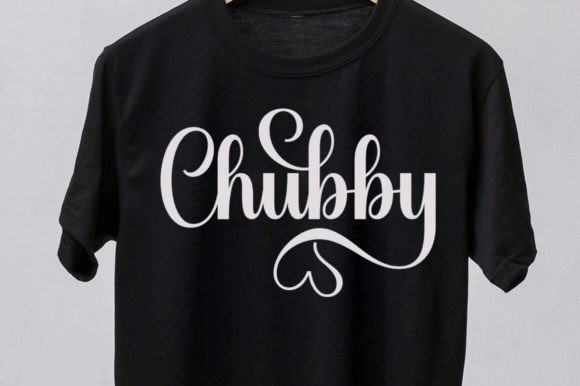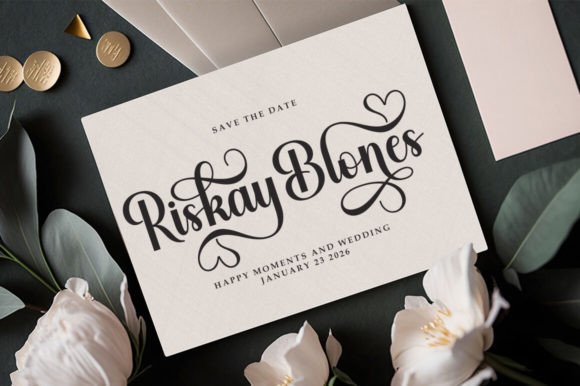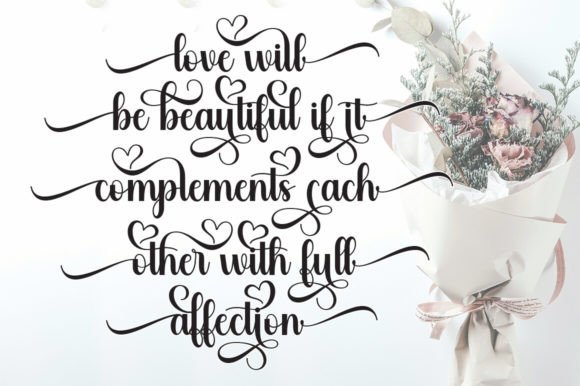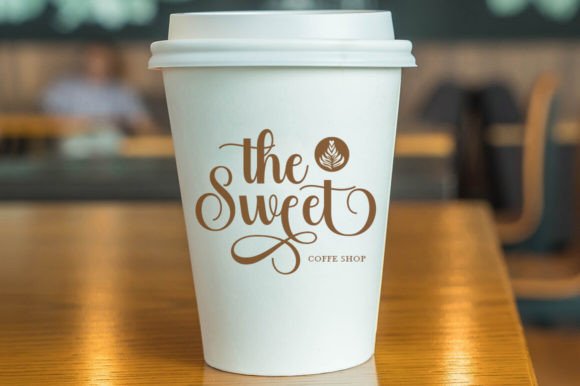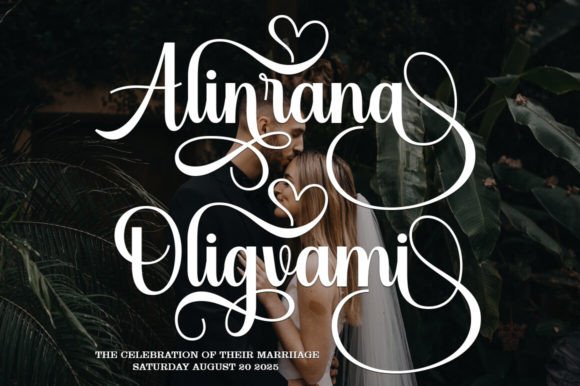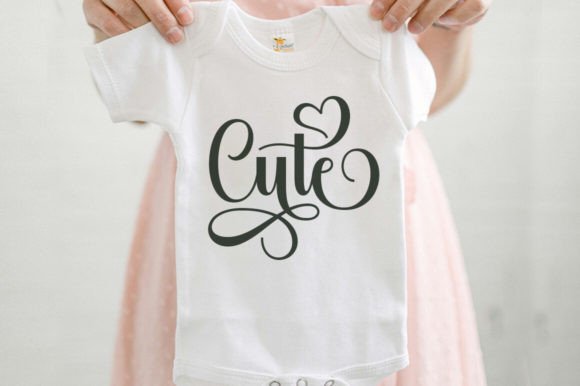
Have you ever stared at a blank page, waiting for inspiration to strike? For designers, those moments are all too familiar. It’s the spark that sets off a chain reaction of creativity, and we’re excited to share just the thing to get those ideas flowing: the Baby Cute Font.
This stunning script font is more than just a pretty face – it’s a sophisticated blend of charm and elegance that’s sure to elevate any design project to new heights. Whether you’re working on branding, titles, wedding designs, or invitations, the Baby Cute Font is the perfect addition to your toolkit.
As a designer, you know how much a great font can make all the difference. The Baby Cute Font is a valuable asset to have in your arsenal, offering a level of luxury and sophistication that’s hard to find elsewhere. With its elegant calligraphy-inspired style, it’s the perfect choice for any project that demands a touch of class.
Baby Cute Font Key Features
- Unique Characteristics: Rounded edges, playful curves, and adorable details, perfect for creating a cute and childlike atmosphere
- Font Style: Casual, cursive, and script styles available, ideal for headings, titles, and short text
Baby Cute Font Review
At first glance, the Baby Cute Font seems like a playful and adorable addition to any design project. I was immediately drawn to its whimsical feel and the potential to add a touch of innocence and charm to a design. ✨ The font’s rounded edges and soft lines give it a sweet and endearing quality that’s sure to put a smile on the viewer’s face.
One of the things that works well in the Baby Cute Font is its versatility. ✨ It can be used for a wide range of projects, from children’s books and nursery decor to social media graphics and advertising campaigns. The font is also highly customizable, allowing designers to adjust the size, color, and style to suit their specific needs.
- ⚠️ The Baby Cute Font may not be suitable for more serious or formal projects, as its playful nature may come across as immature or unprofessional.
- ⚠️ The font’s rounded edges and soft lines may not be ideal for projects that require a more precise or technical feel.
Overall, I would say that the Baby Cute Font is a great addition to any designer’s toolkit, but it’s essential to use it in the right context. When used correctly, it can add a touch of magic and wonder to a design. However, when used in the wrong context, it may come across as gimmicky or unprofessional.
For the best results, pair the Baby Cute Font with pastel colors and cute graphics.
– Baby-related designs (e.g., nursery decor, baby shower invitations)
– Food-related designs (e.g., bakery logos, dessert labels)
– Stationery and greeting cards
– Social media graphics and quotes
Alternatives to Baby Cute Font
Great Vibes is a modern, handwritten font that is perfect for adding a touch of elegance and sophistication to your designs. It’s great for use in wedding invitations, greeting cards, and other special occasions where a more refined look is desired.
Compared to Baby Cute Font, Great Vibes has a more mature and refined feel, making it suitable for a wider range of designs. While Baby Cute Font is ideal for children’s products and playful designs, Great Vibes can be used for more formal and upscale projects.
Alex Brush is a beautiful, handwritten font that is perfect for adding a touch of whimsy and personality to your designs. It’s great for use in branding, packaging, and other designs where a unique and memorable look is desired.